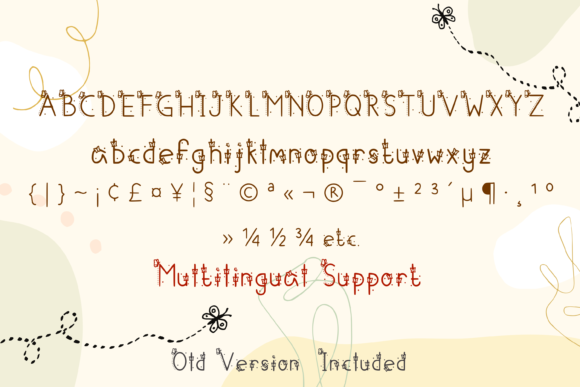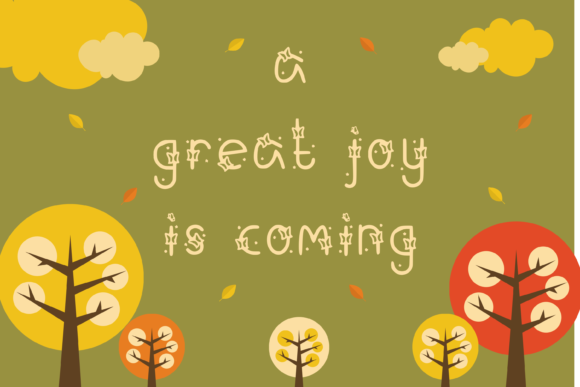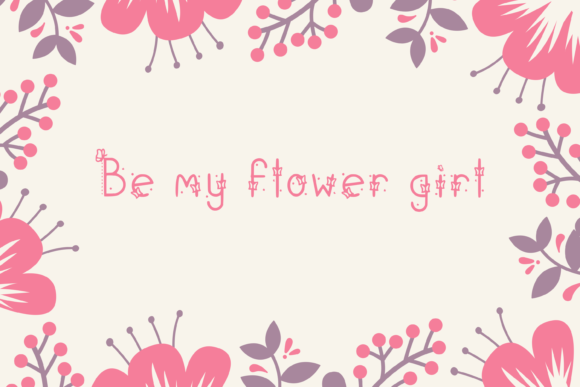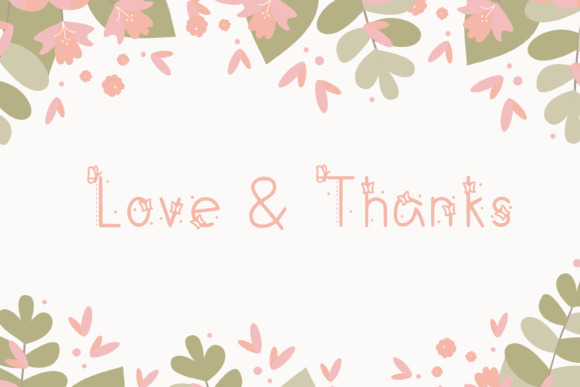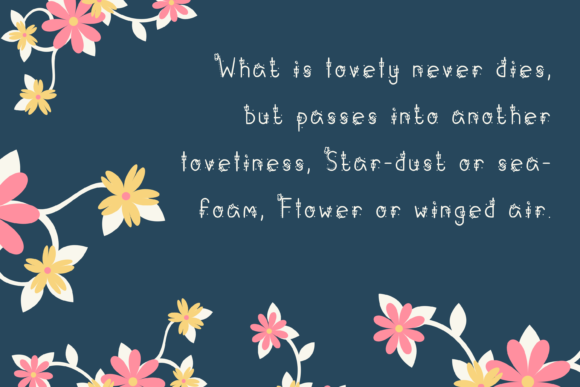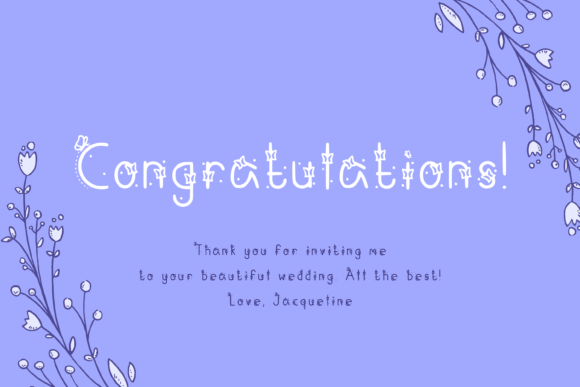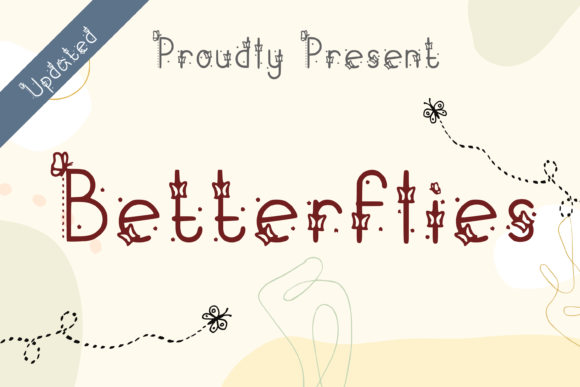
Betterflies Font: Add a Touch of Whimsy to Your Designs
Are you looking for a font that can add a dash of playfulness and charm to your designs? Look no further than Betterflies Font! This delightful decorative font features tiny little butterflies that are sure to bring a smile to your face. In this article, we’ll dive into the world of Betterflies Font and explore its endless variations, so you can make the most of this beautiful font.
What is Betterflies Font?
Betterflies Font is a unique and creative typeface that showcases tiny butterflies in its design. This font is perfect for designers and crafters who want to add a touch of whimsy and personality to their projects. Whether you’re working on a branding project, a craft tutorial, or a social media graphic, Betterflies Font is sure to make your design stand out.
Key Features of Betterflies Font
- Cute and Jolly Design: Betterflies Font features tiny little butterflies that give it a playful and charming vibe.
- Decorative Style: This font is perfect for decorative projects, such as party invitations, greeting cards, and social media graphics.
- Endless Variations: With Betterflies Font, you can experiment with different styles, colors, and arrangements to create unique and personalized designs.
Uses for Betterflies Font
Betterflies Font is a versatile typeface that can be used in a variety of projects, including:
- Branding and Packaging: Add a touch of personality to your brand with Betterflies Font. Use it for logos, labels, and packaging designs.
- Crafting and Scrapbooking: This font is perfect for crafters and scrapbookers who want to add a playful touch to their projects.
- Social Media Graphics: Use Betterflies Font to create eye-catching social media graphics, such as Facebook posts, Instagram stories, and Pinterest pins.
- Party Invitations and Decor: Create beautiful and unique party invitations and decorations with Betterflies Font.
Tips for Using Betterflies Font
To get the most out of Betterflies Font, here are some tips to keep in mind:
- Experiment with Colors: Try out different colors and color combinations to match your brand or project’s aesthetic.
- Mix and Match: Combine Betterflies Font with other fonts and design elements to create a unique and personalized look.
- Play with Size and Arrangement: Experiment with different font sizes and arrangements to add visual interest to your design.
Betterflies Font is a delightful and versatile typeface that’s perfect for designers and crafters who want to add a touch of whimsy and personality to their projects. With its cute and jolly design, endless variations, and ease of use, this font is sure to become a favorite in your design arsenal. So why not give Betterflies Font a try and see how it can elevate your designs?